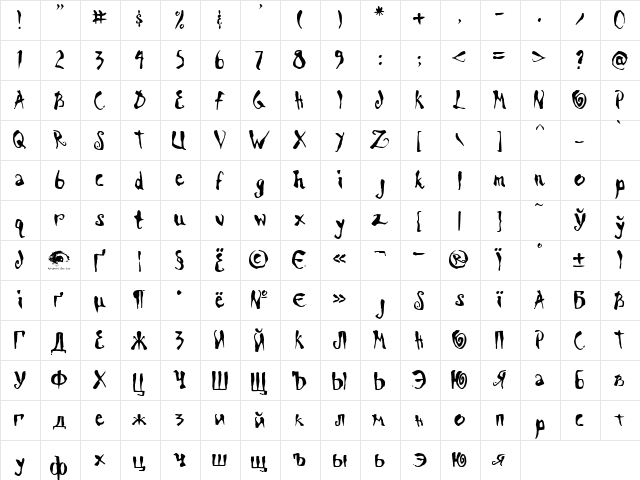
Scrawn Cyr AOE Regular
Design Context for Scrawn Cyr AOE Typeface
Scrawn Cyr AOE is a composed and adaptable typeface that performs quietly and consistently across a wide range of design contexts.